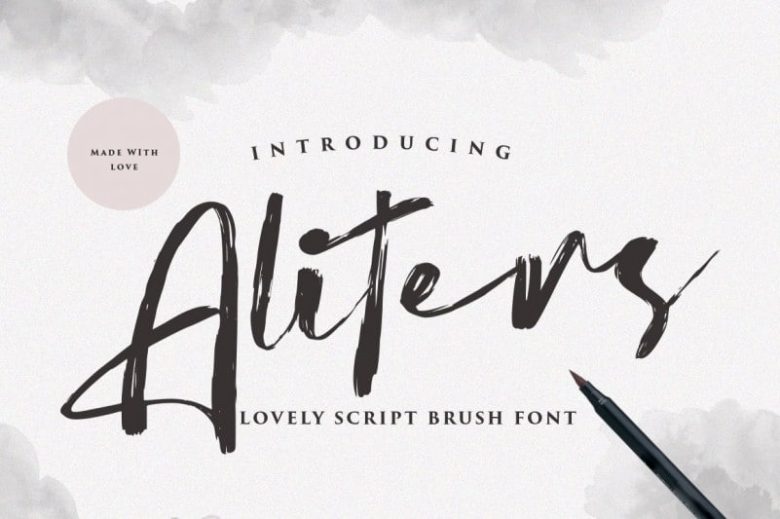
Aliters Brush Font Free
Introducing Aliters Brush Font is a elegant brush font. The handwritten combined with brush font will make your design project more attractive. It is a script from the designer vultype, created with the help of a unique brush pen. Fall in love with its incredibly versatile style and use it to create gorgeous wedding invitations, beautiful stationary art, eye-catching social media posts, and much more!
It easily cooperating together For Magazine, Movies, or Book Titles. For Photography, Wedding Invitation, Restaurant Menu or T-shirt Design. For Flyers, Banner Ads, web and printing. From Food and Fashion to a Cosmetics product.